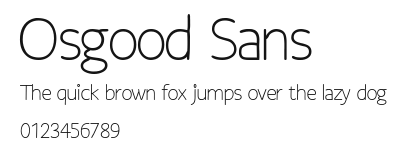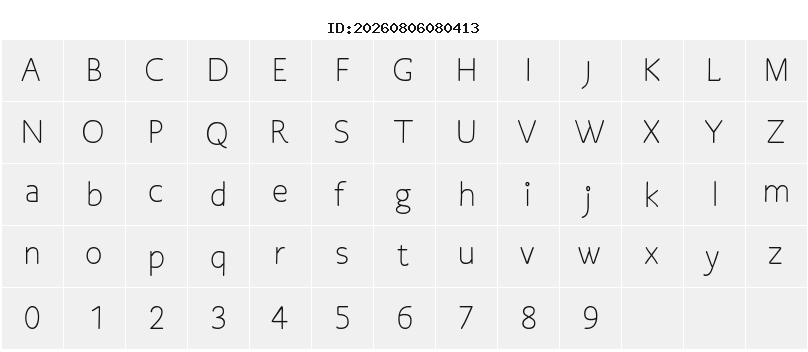
• Font Name: Osgood Sans
• Designer: Quzma Supply Co.
• Description: Osgood Sans - handdrawn sans serif font
About Osgood Sans.ttf
Osgood Sans.ttf is a modern, elegant sans-serif font designed for ultimate readability and visual harmony. Perfect for branding, headlines, web design, and print materials.